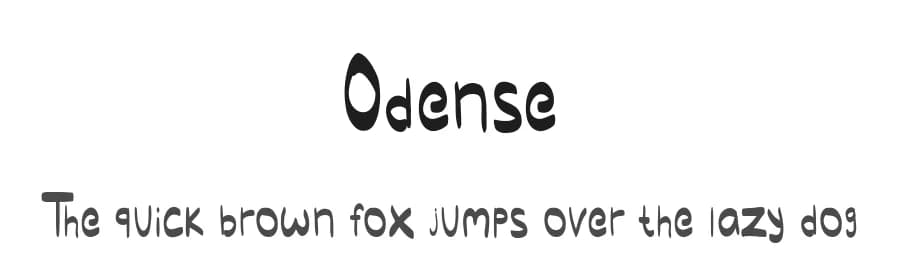
About Odense Font
Odense is a script & handwritten font designed by Nirmala Graphics. It includes 65 glyphs, a regular weight, TTF (TrueType) format, and 89 languages. Odense is free to download; check the license details on this page before commercial use. Script & handwritten fonts like Odense work best for wedding invitations, greeting cards, signatures, and elegant branding.
Odense Font is a script font that shines as a display or heading face. Pair it with a clean sans-serif or serif font for body text β the contrast creates a clear hierarchy while the two styles stay balanced and easy to read.